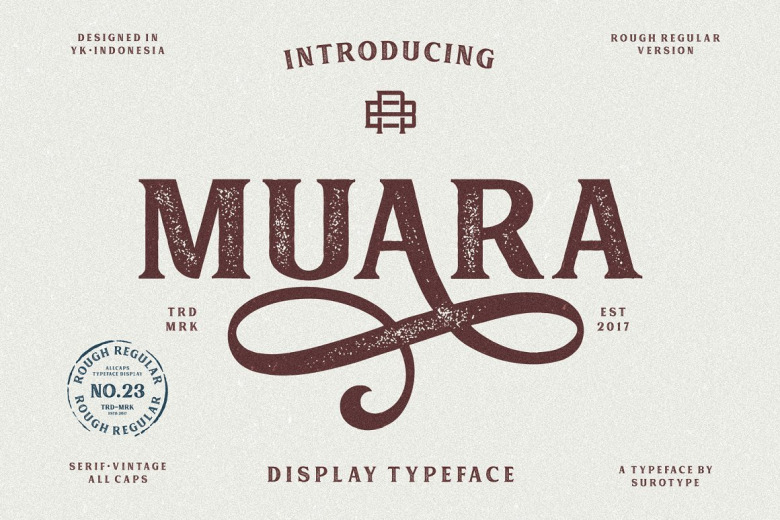
Muara Rough Typeface
Start the day with a styled typewriter designed by Adil Budianto. A professional designer from Yogyakarta, Indonesia. Introducing Muara Rough. A typeface classic taste ,very suitable as to make a design choice for books, magazines, packaging, branding , signage and more other creative project. Allcaps characters, no different from the version MUARA No.22, with over 330 glyphs MUARA No.23 also has alternative characters such as Stylistic Alternates, Stylistic Set, and Swash variant.